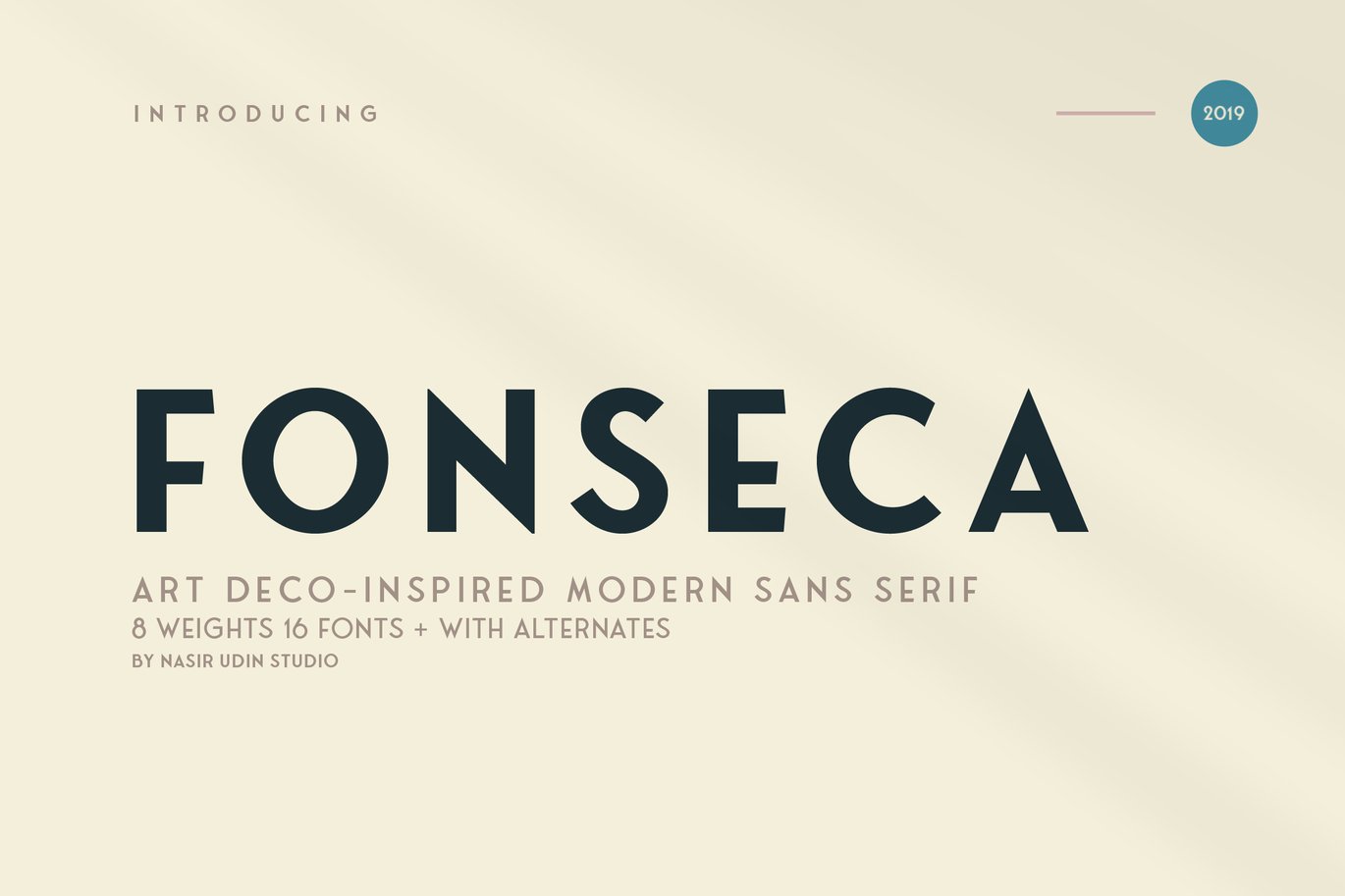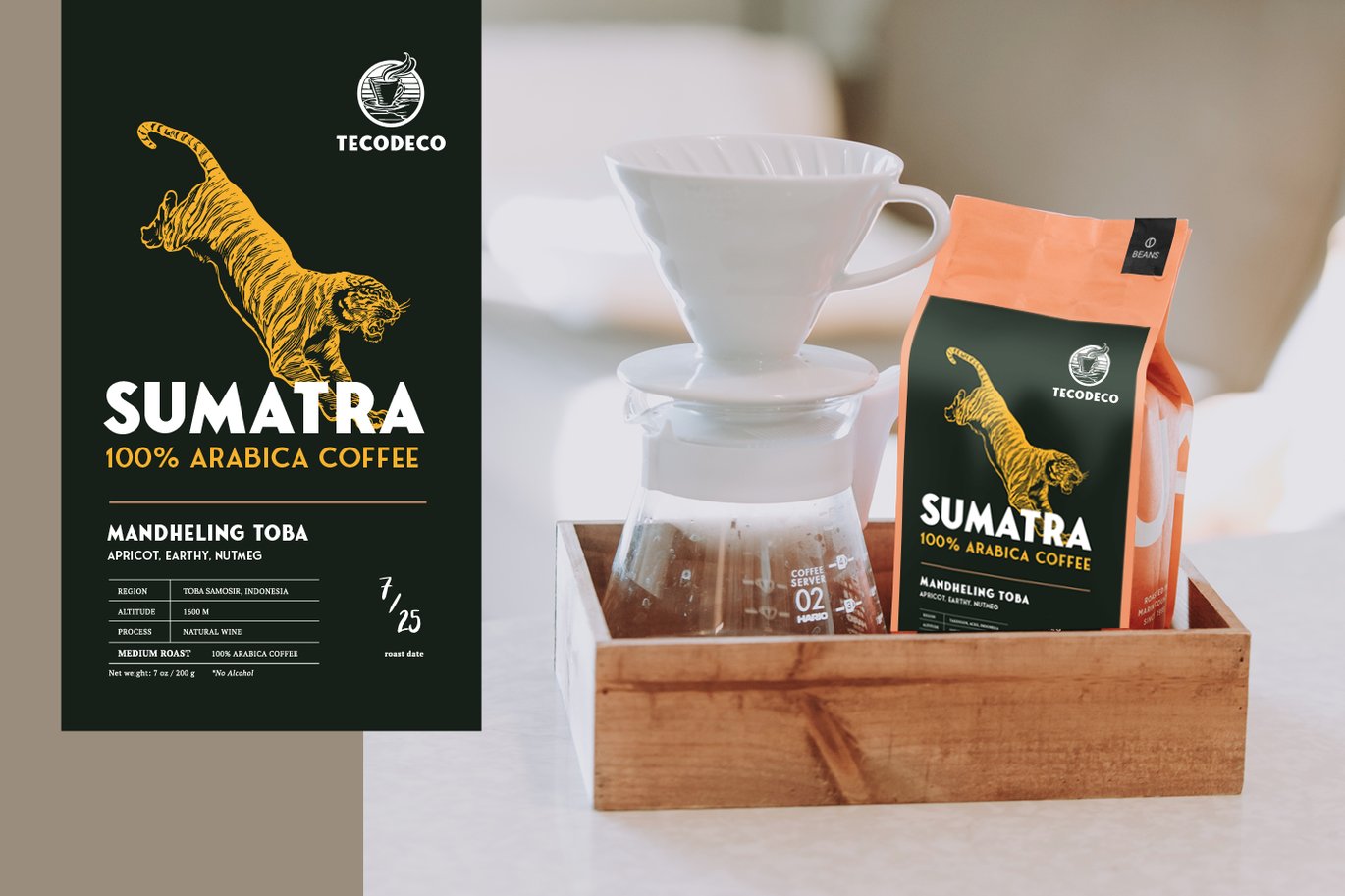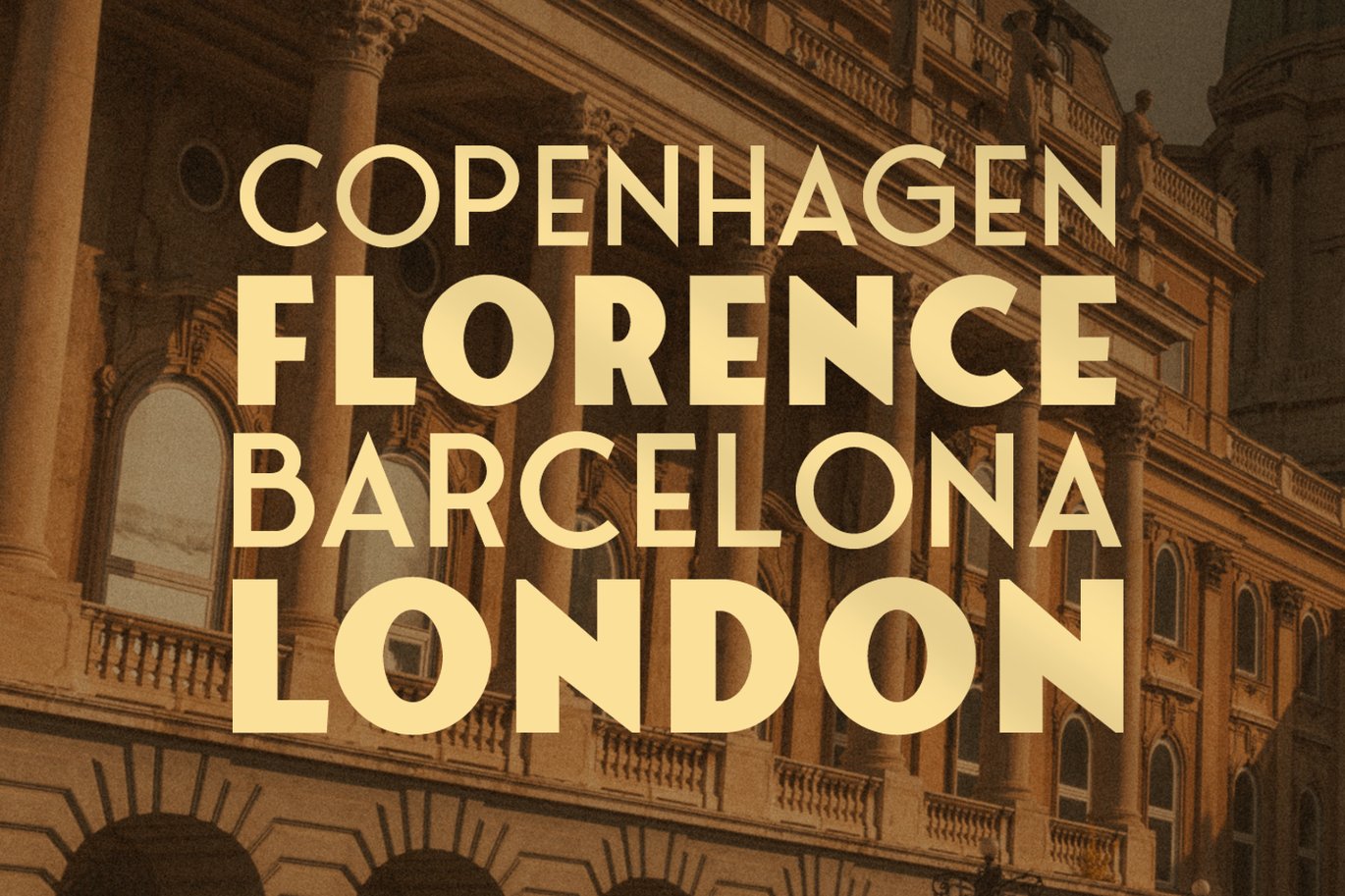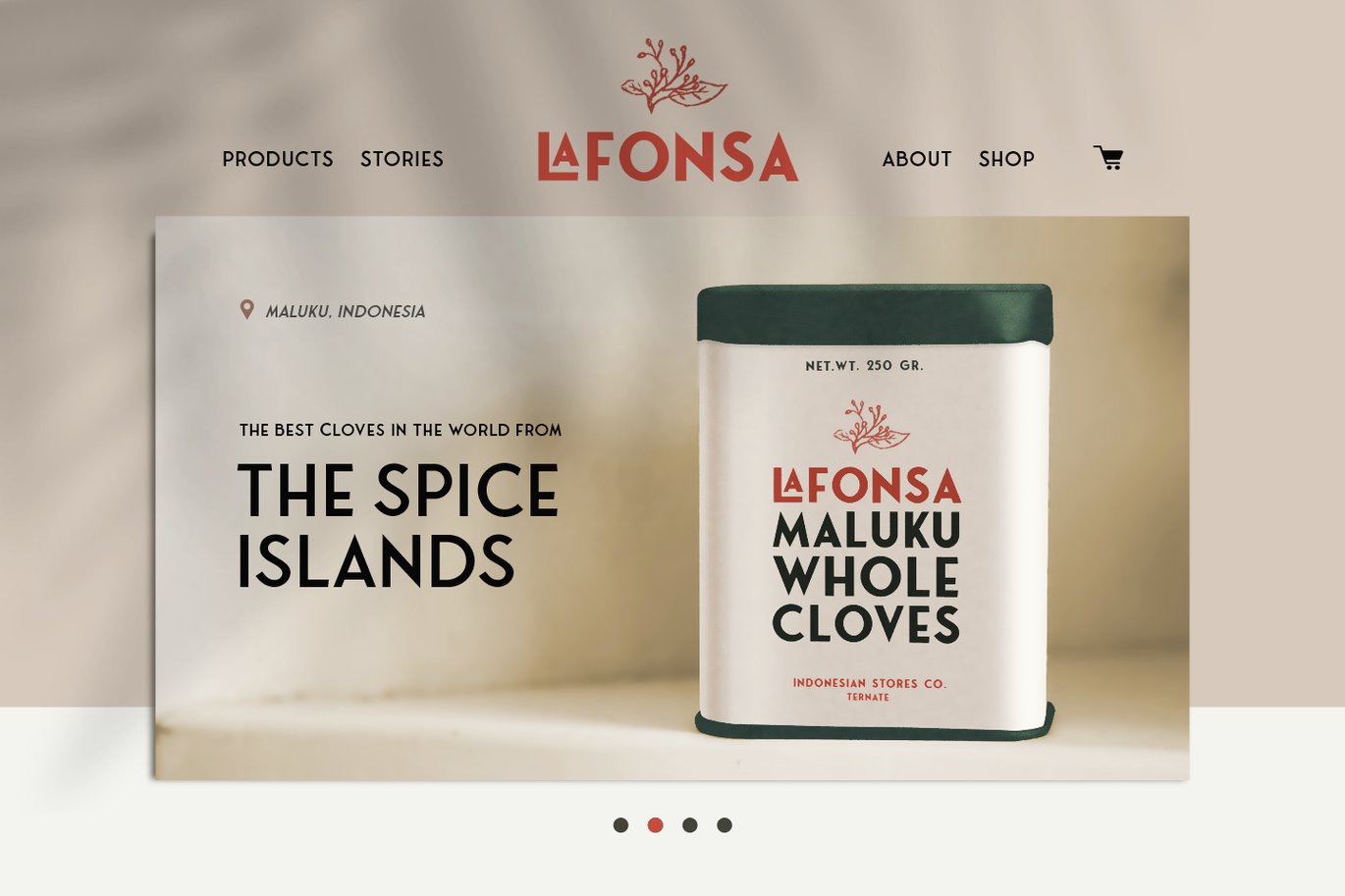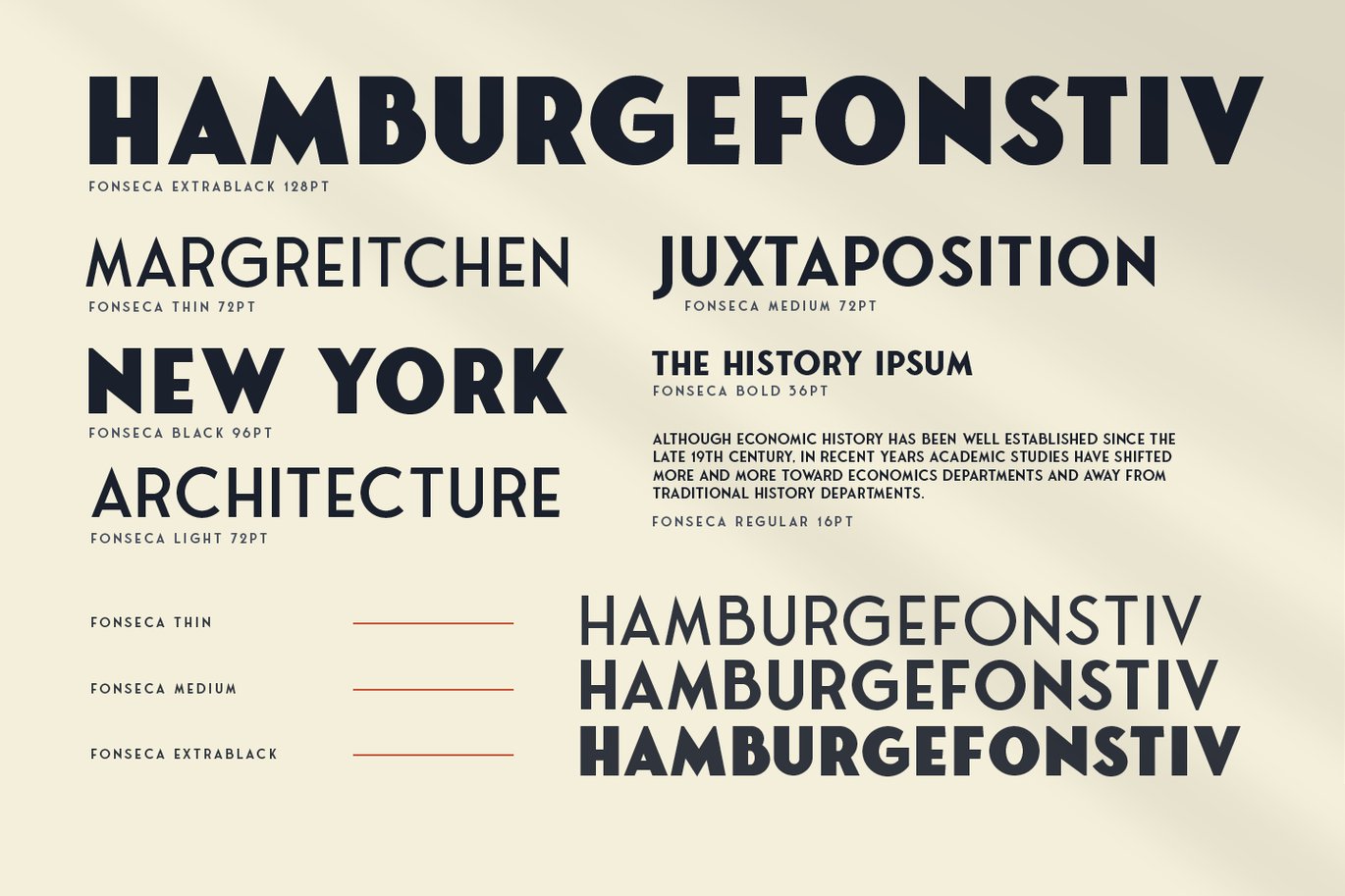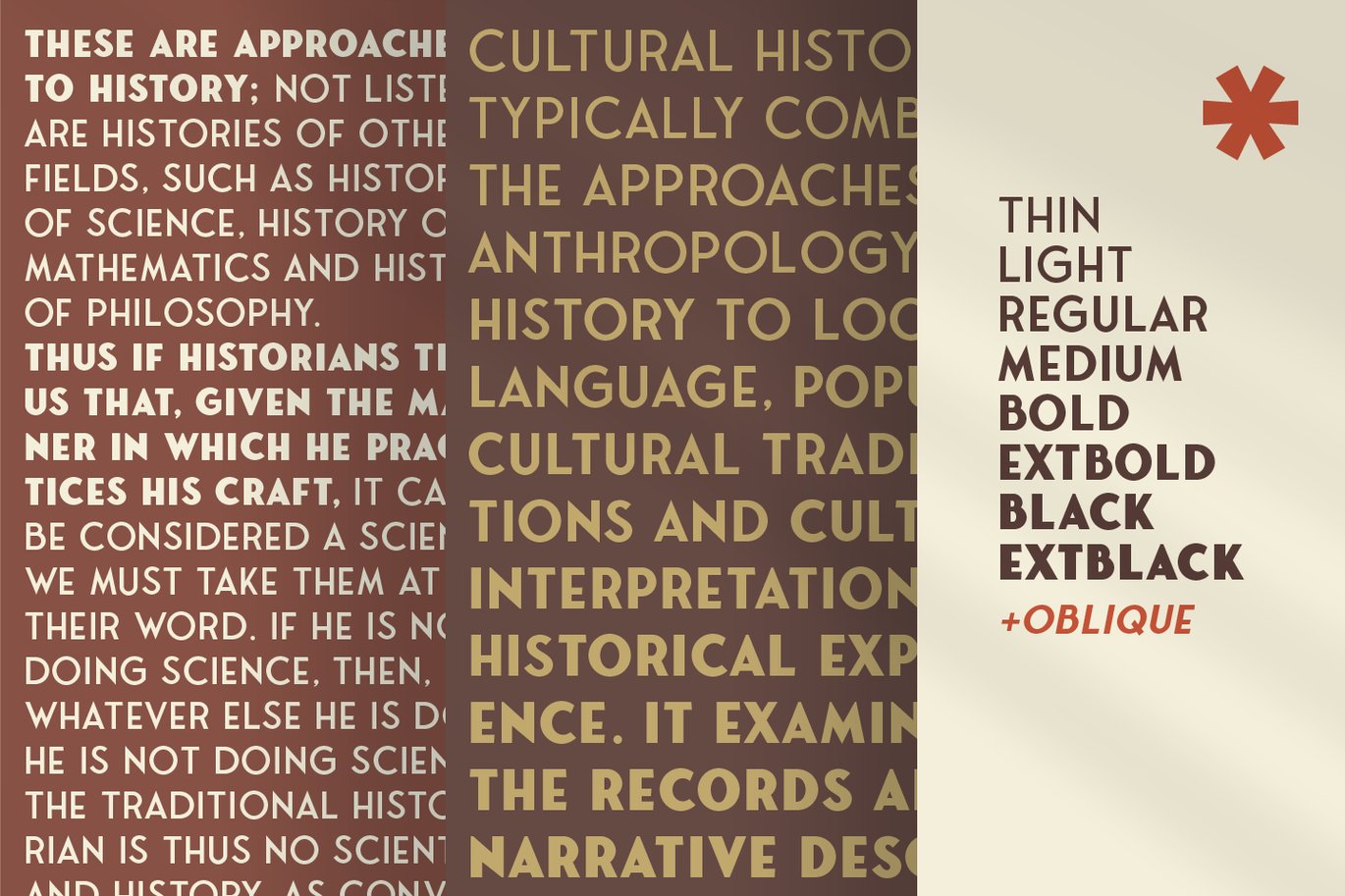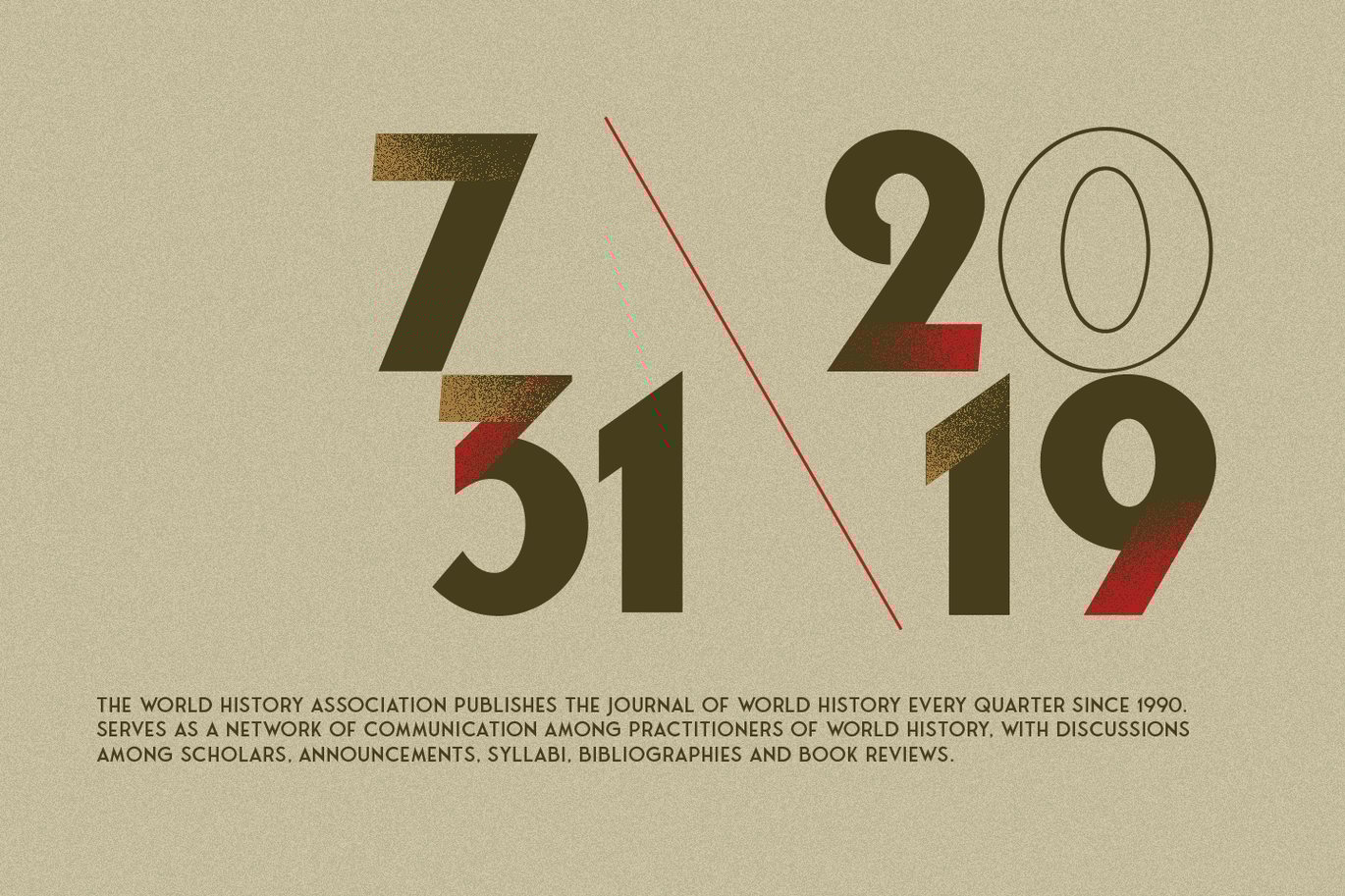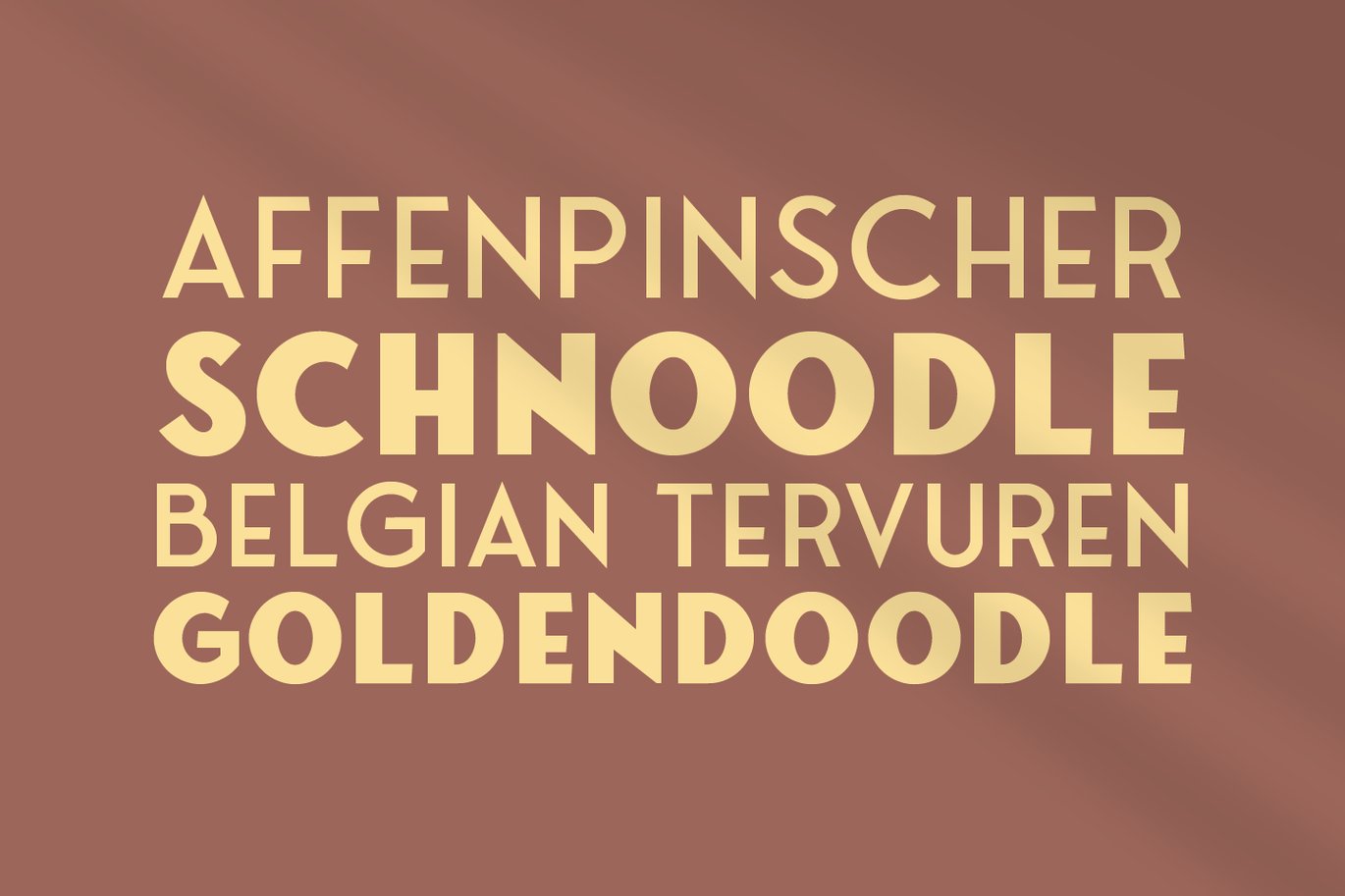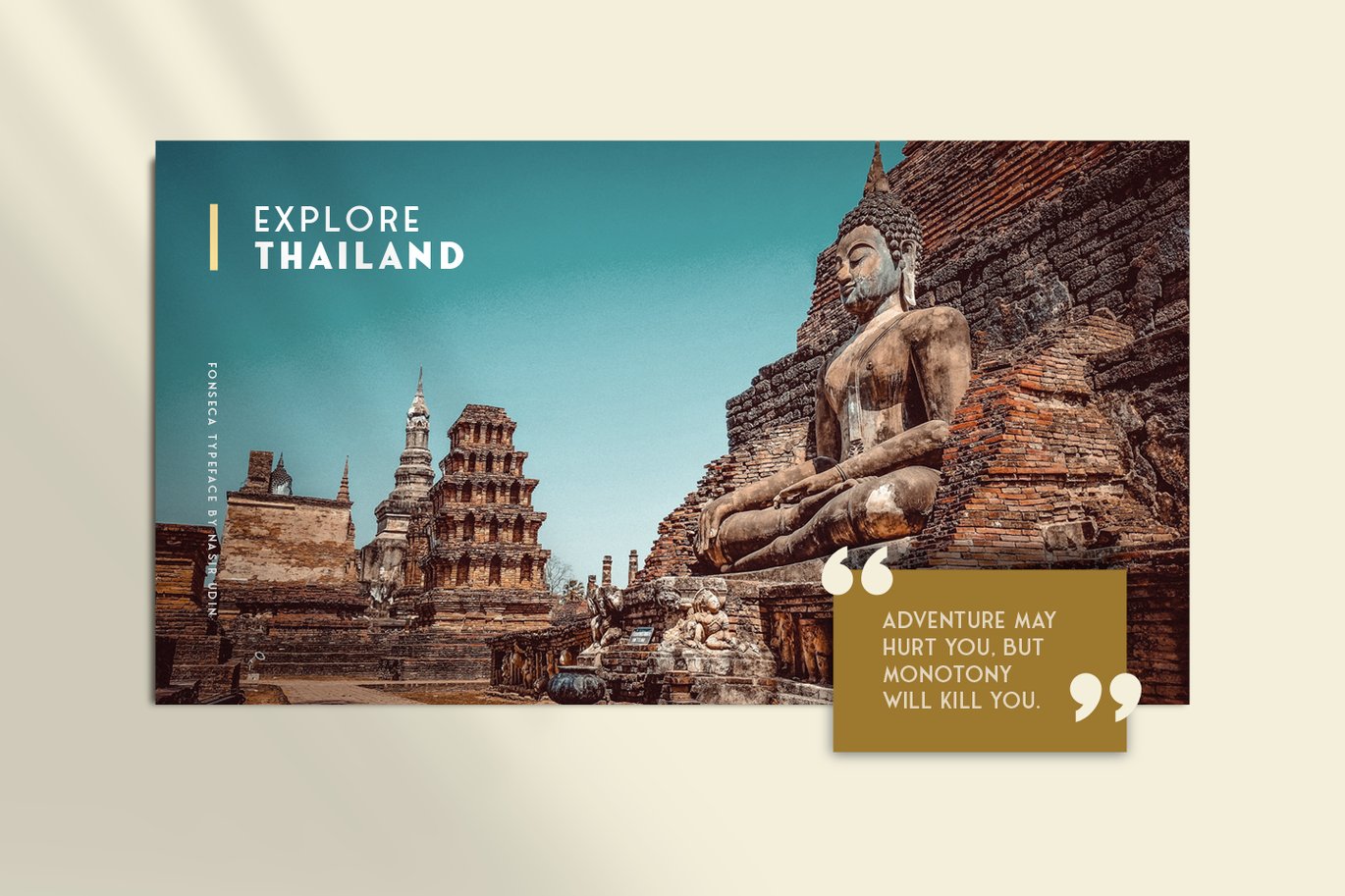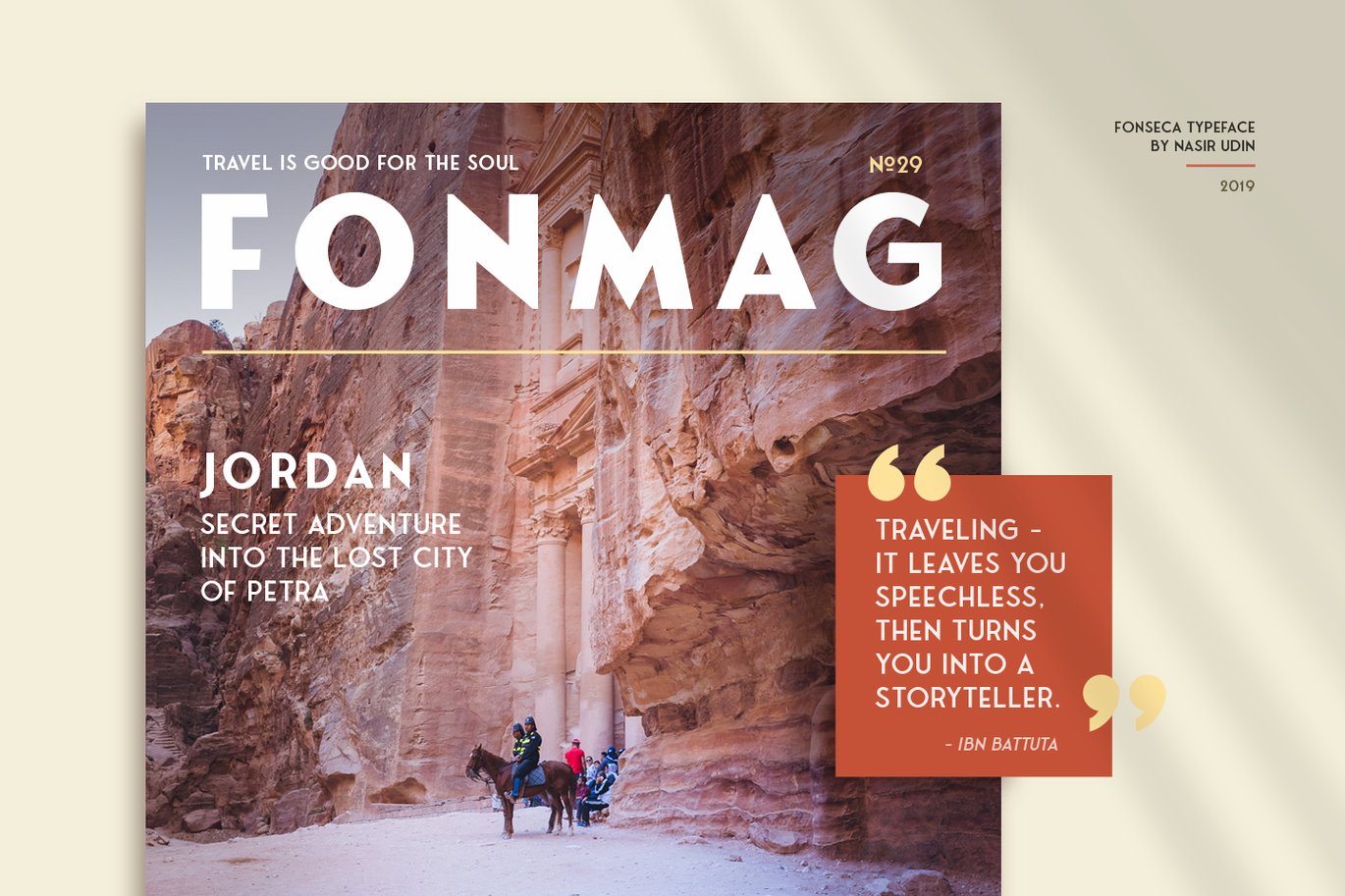
Fonseca | art deco font family pack
Fonseca is a modern sans serif inspired by art deco and typography poster in early 20th century. The key of this all-caps family is simple straight geometric forms and modernized letterforms.
The modernized retro-look makes this family great to presents any contents related to travel, history & culture in the present/modern way. This display family is perfect for headlines, posters, logos, branding projects, magazines, and packaging.
- Stylistic alternates for letter ‘O’ and ‘E’
- Special ligatures: LA LE LI LO LU